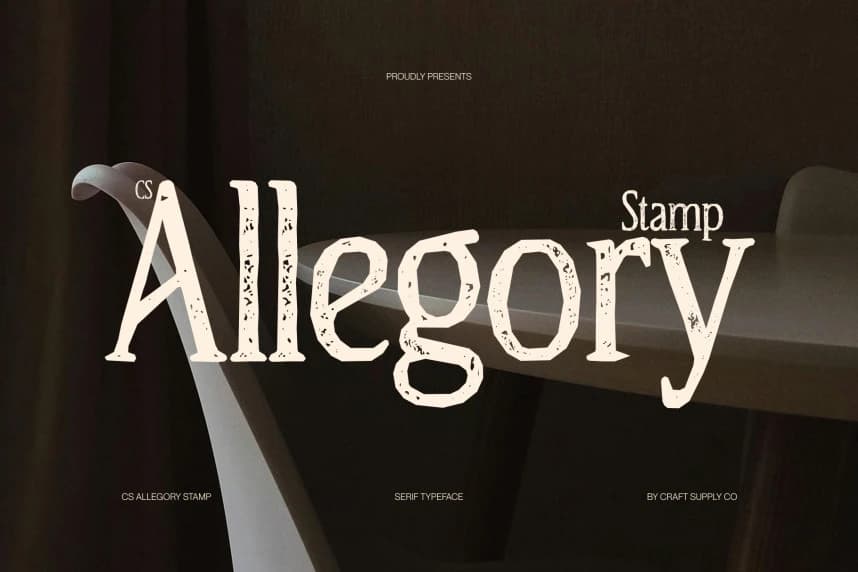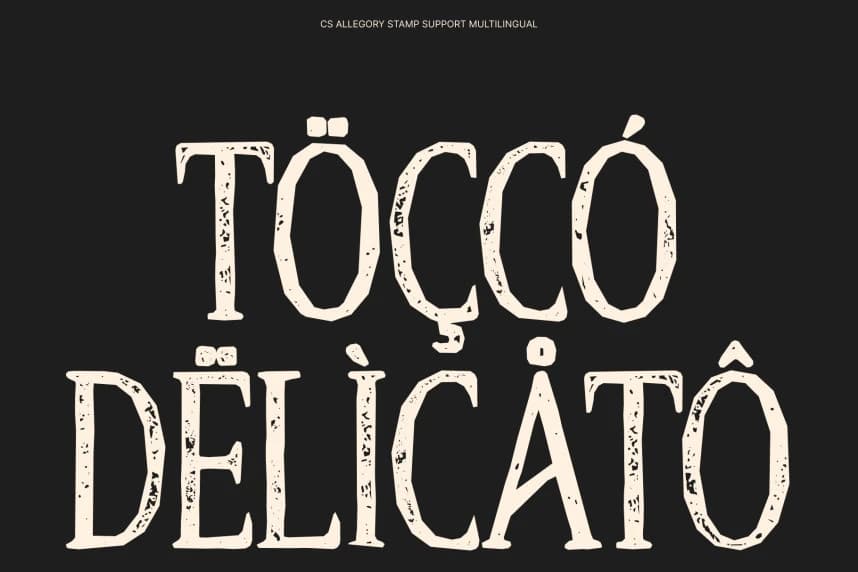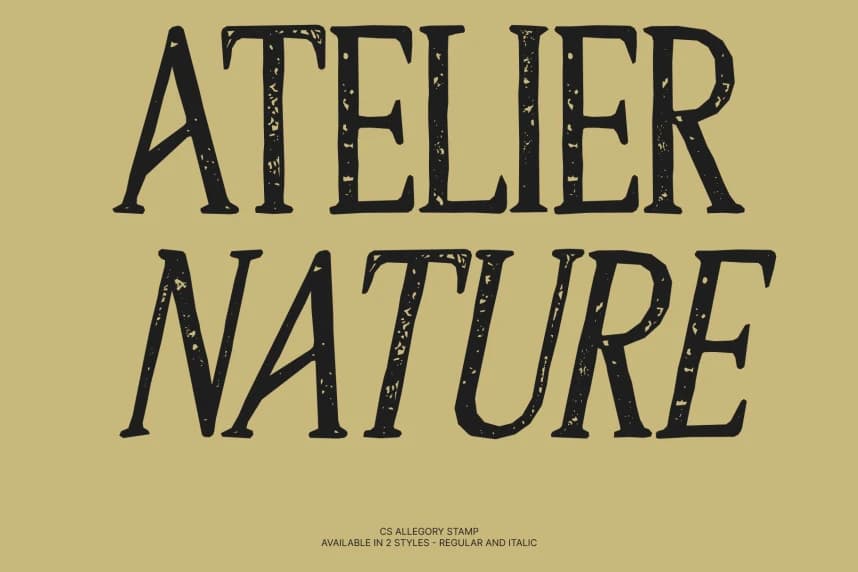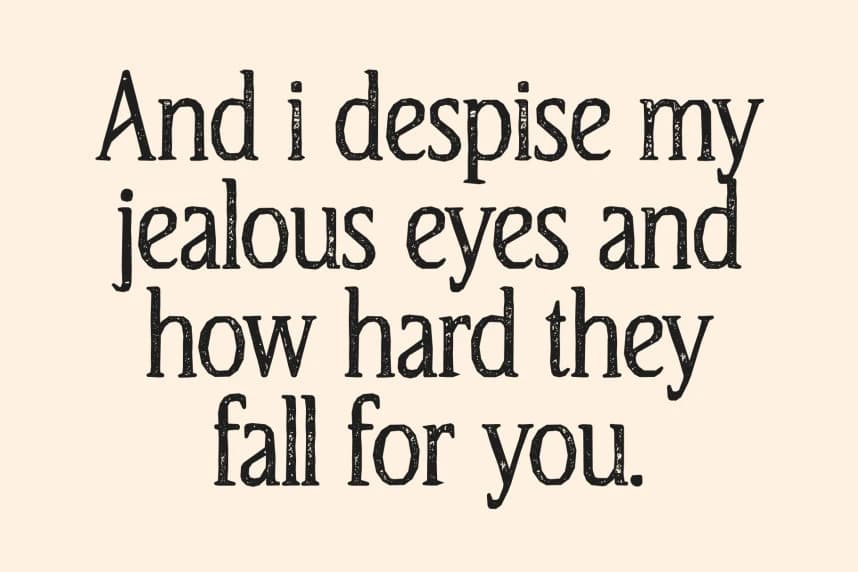
CS Allegory Stamp Font
CS Allegory Stamp Font – Timeless Renaissance Elegance with Textured Depth Classic Serif with a Stamped Renaissance Soul. This refines its Renaissance-inspired serif structure with a subtle stamped texture that enhances its artisanal heritage.